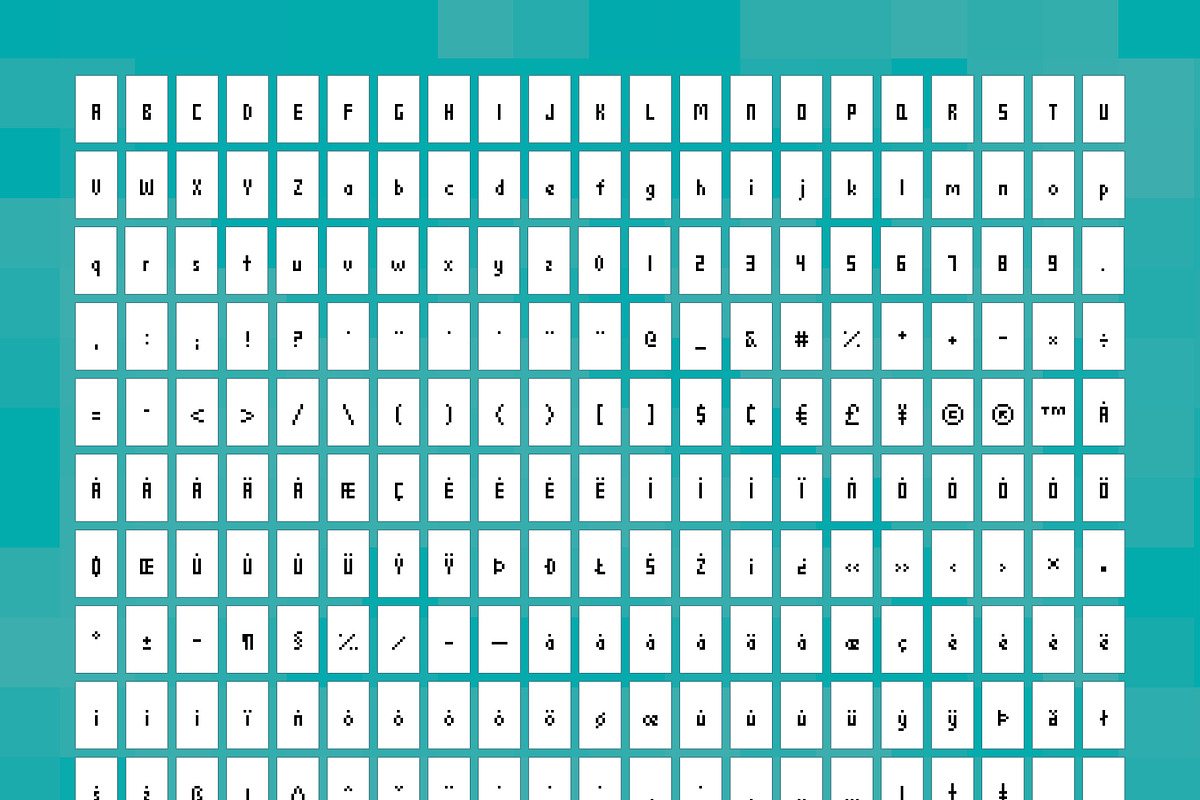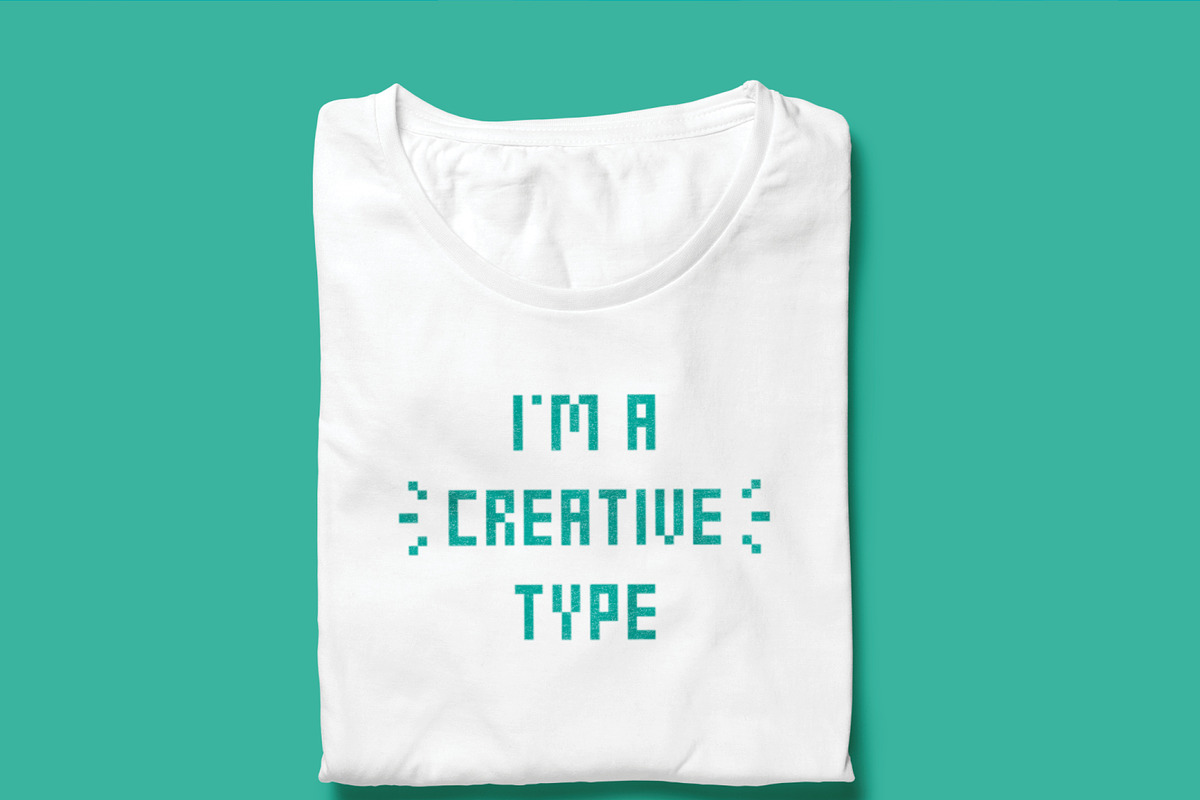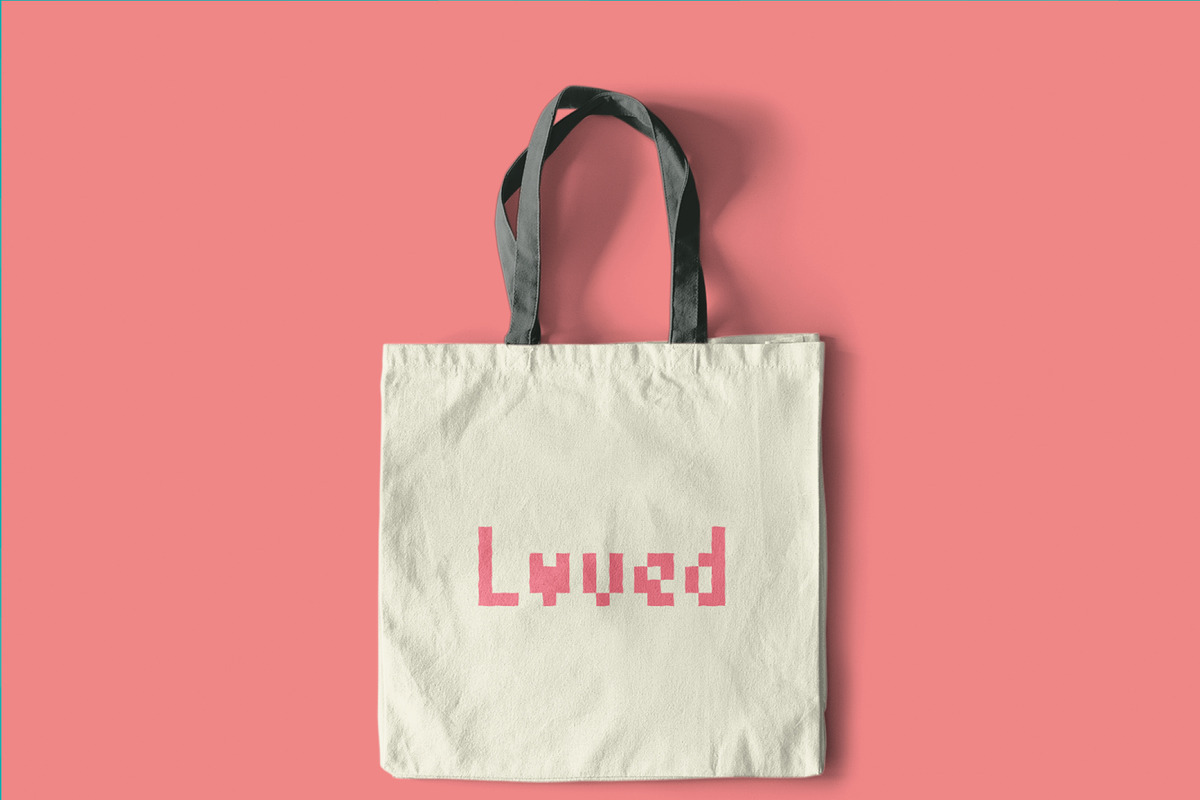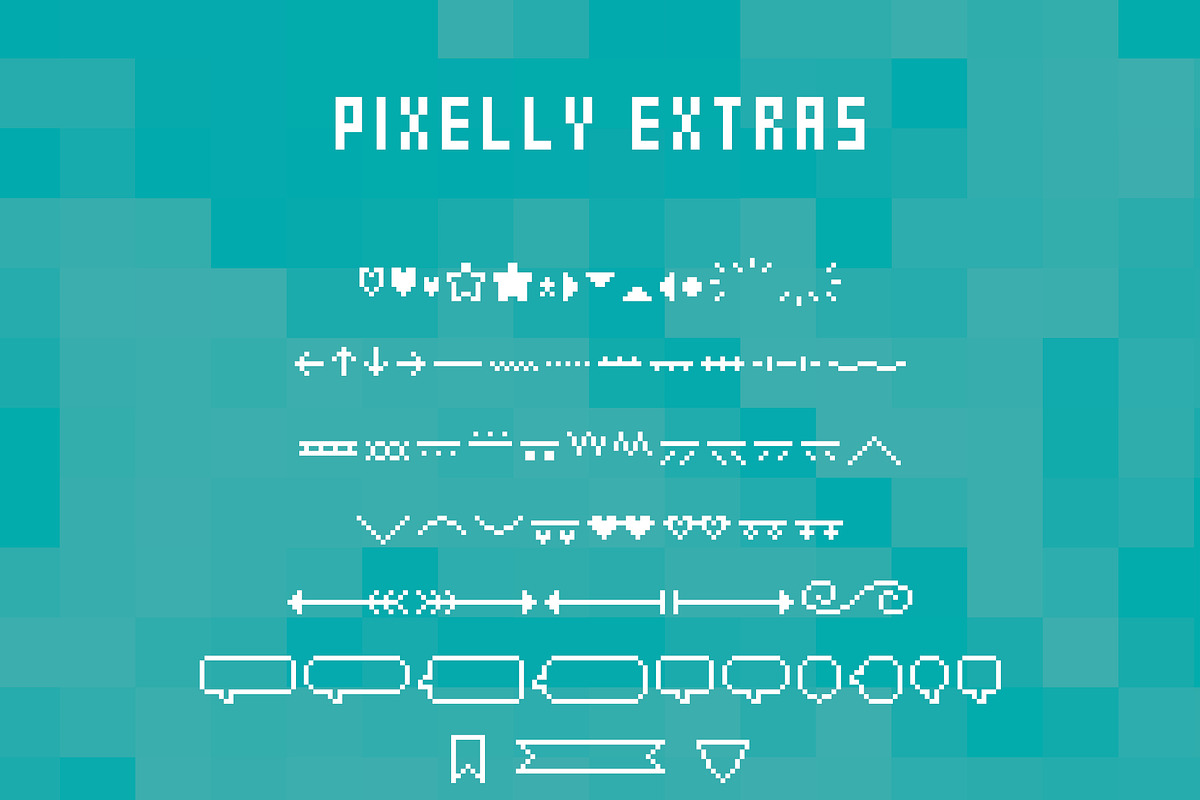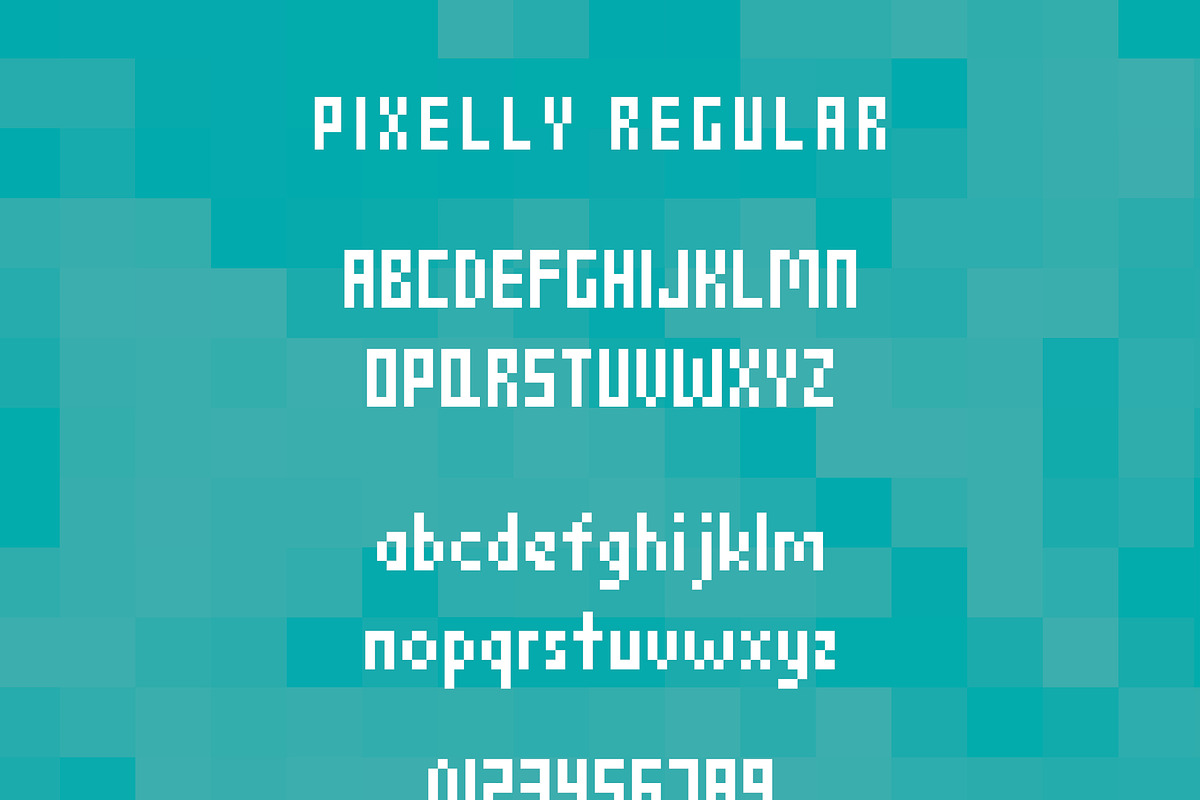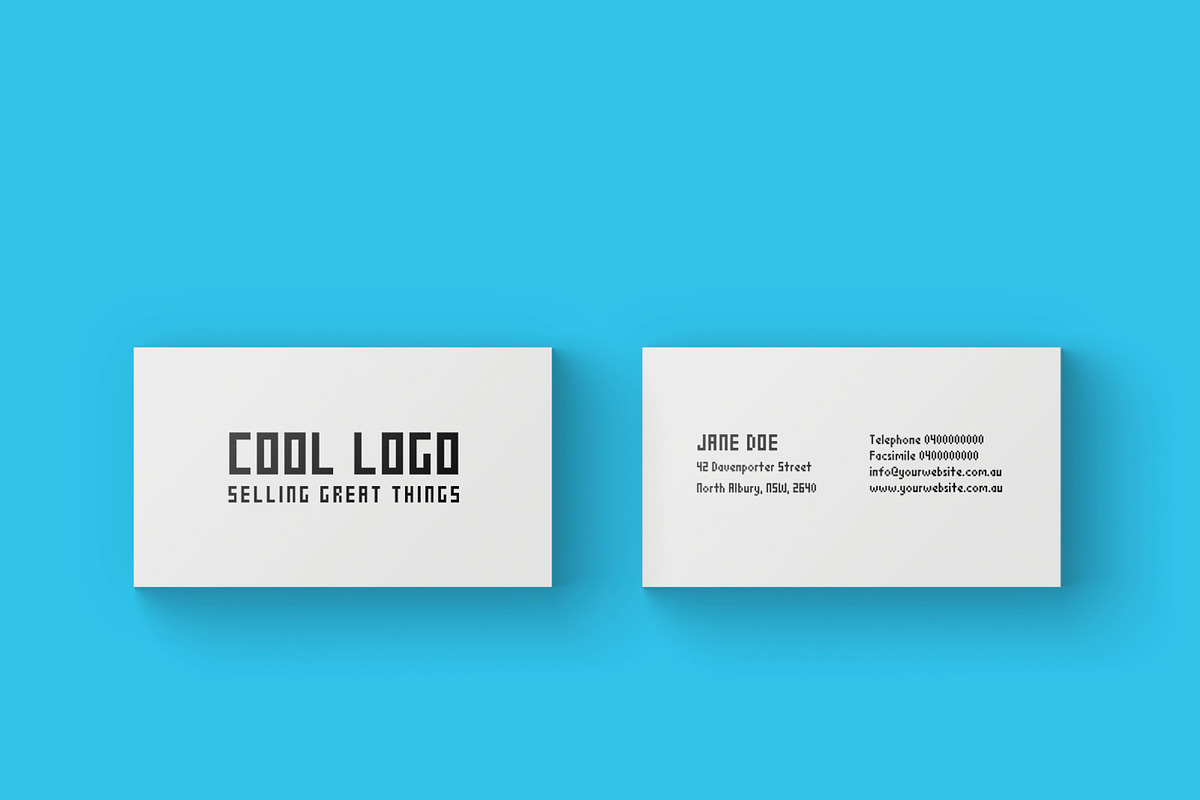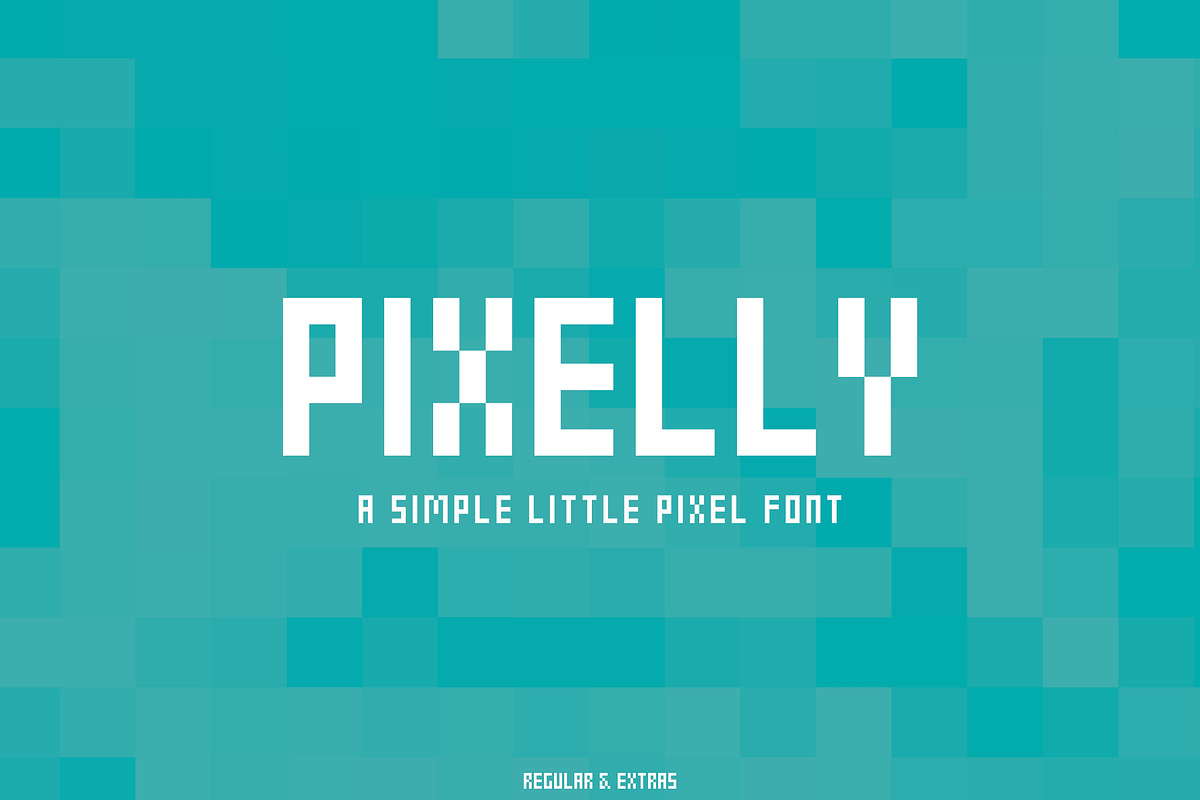
Pixelly
Pixelly is a simple pixel font in regular and extras. Pixelly includes uppercase, lowercase, punctuation, accented characters and decorative elements.